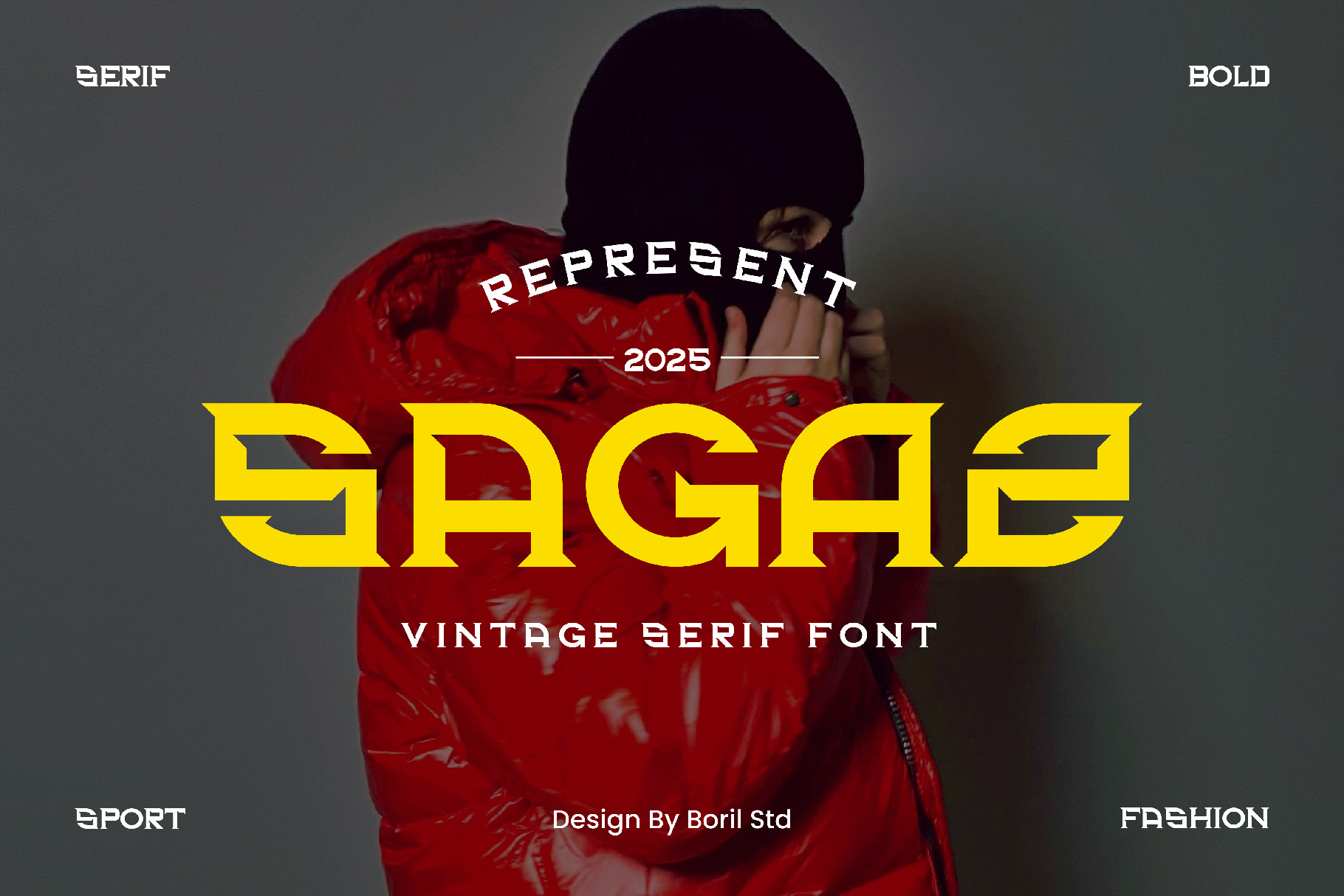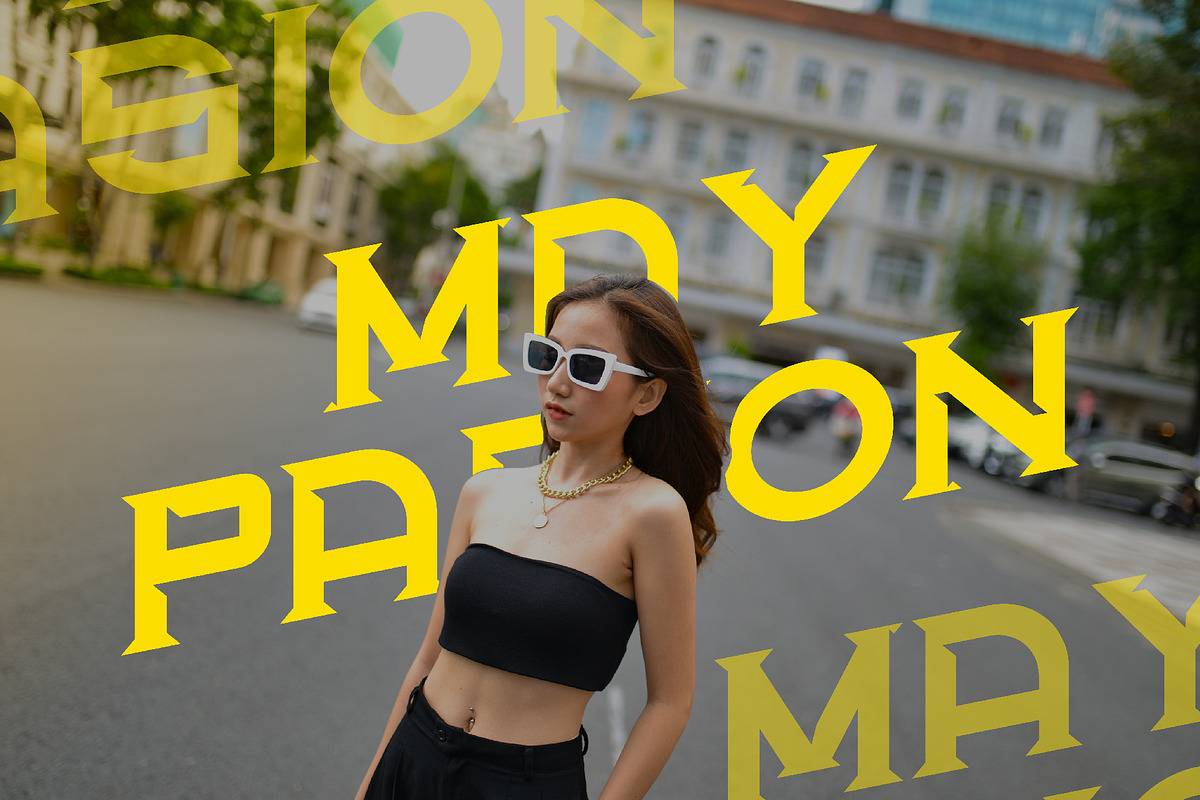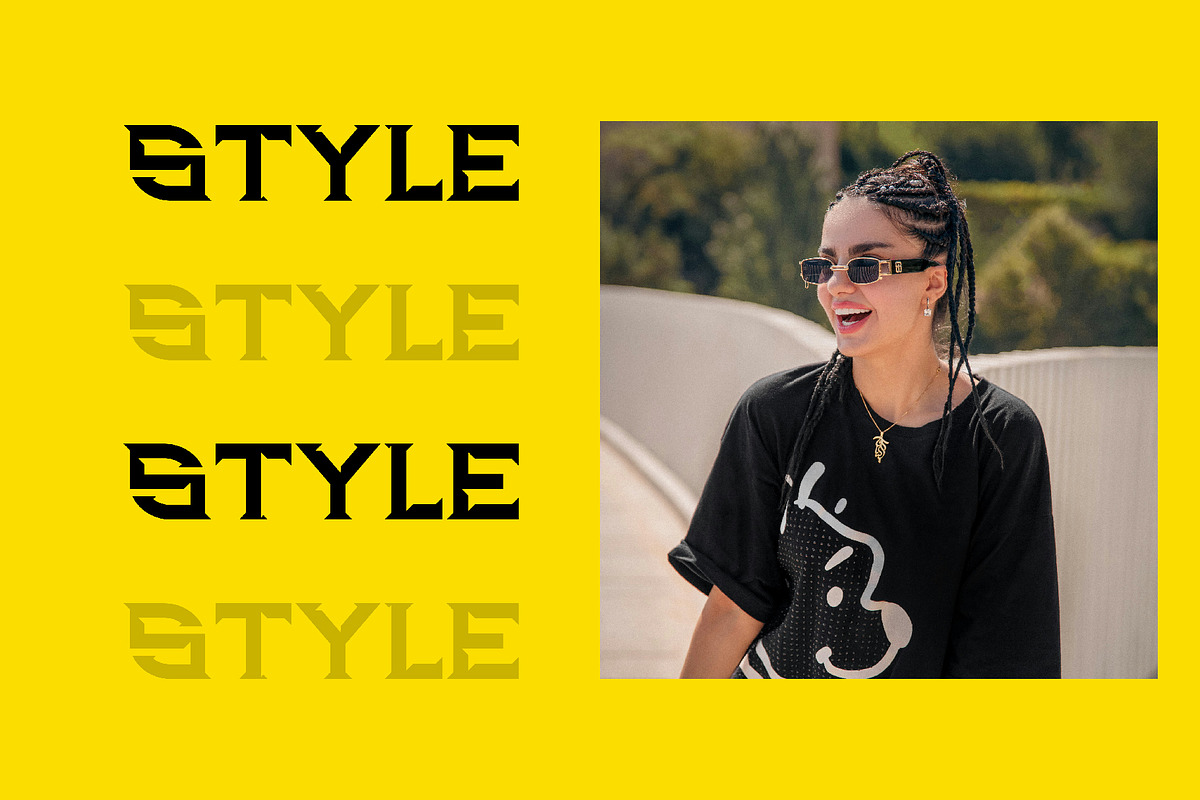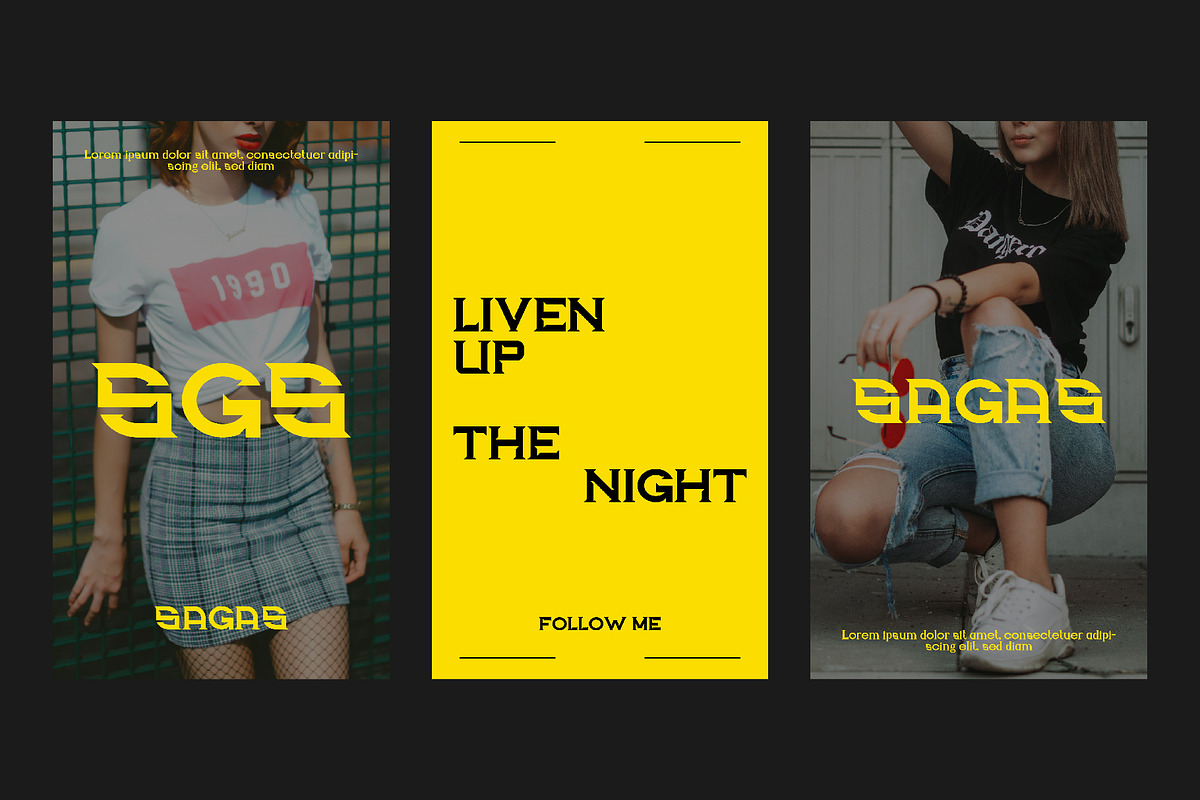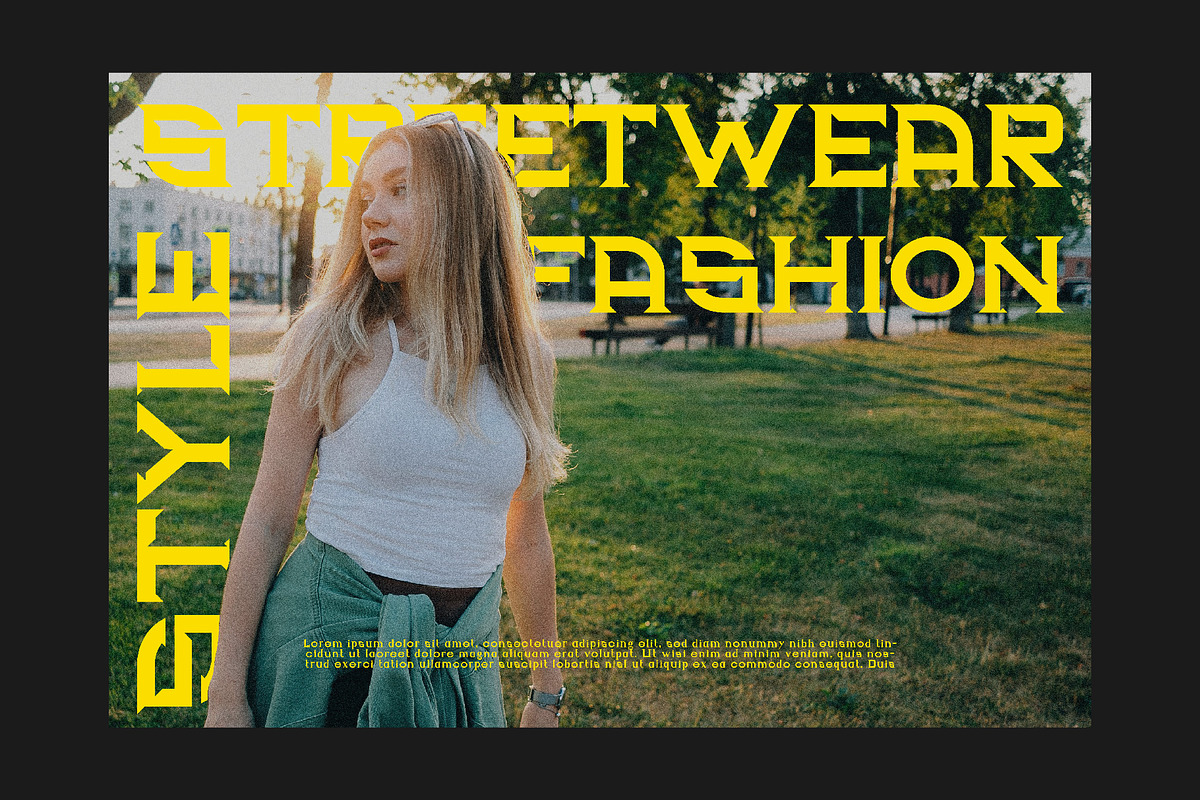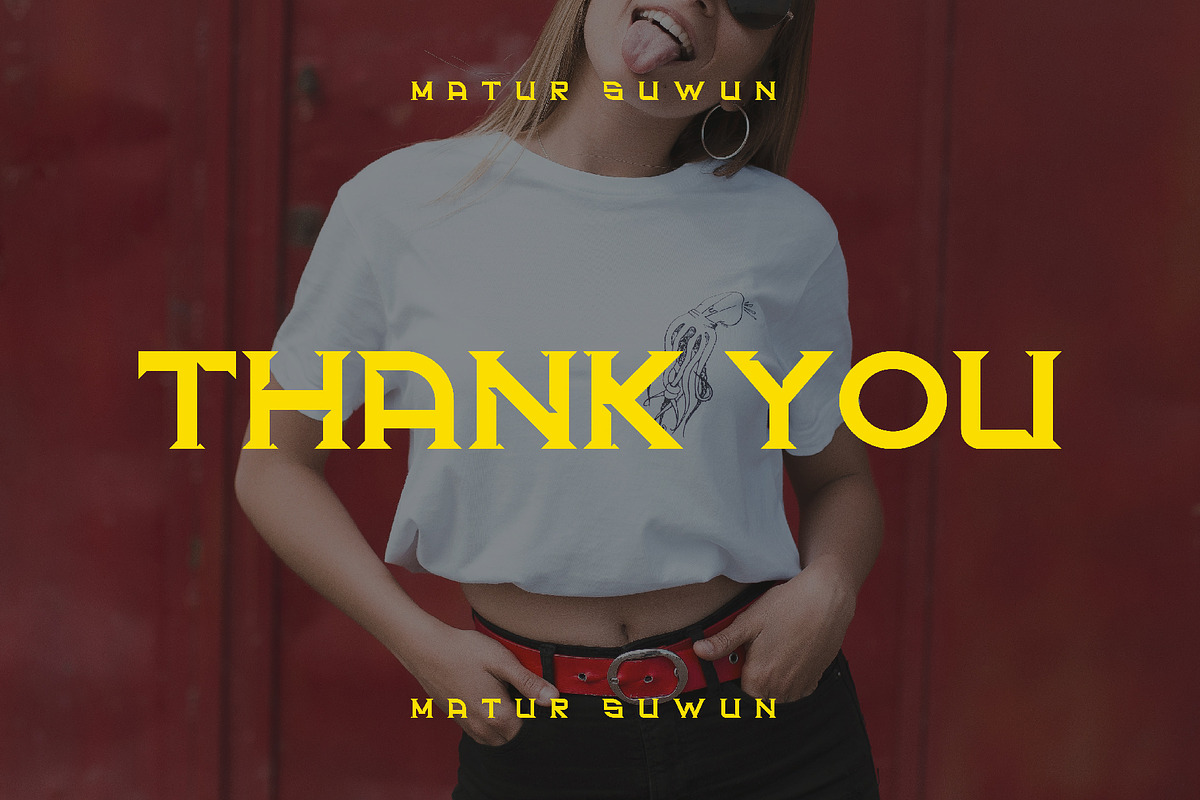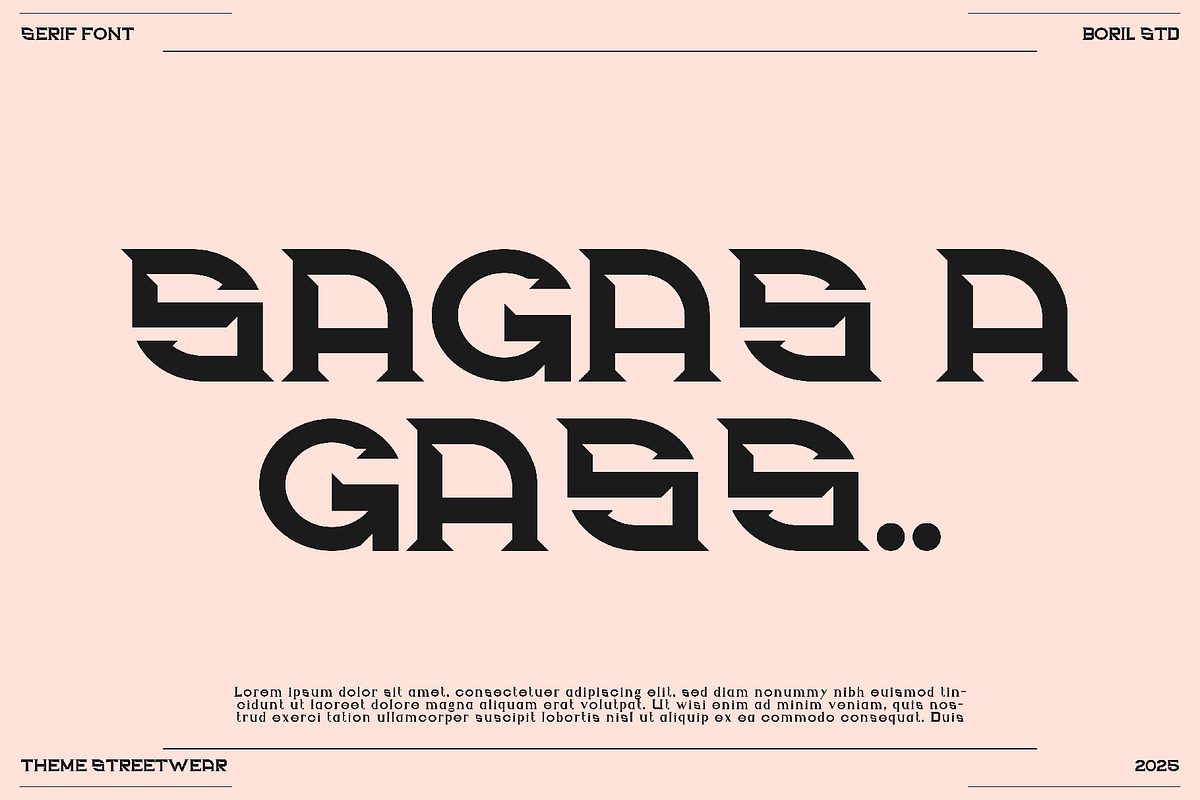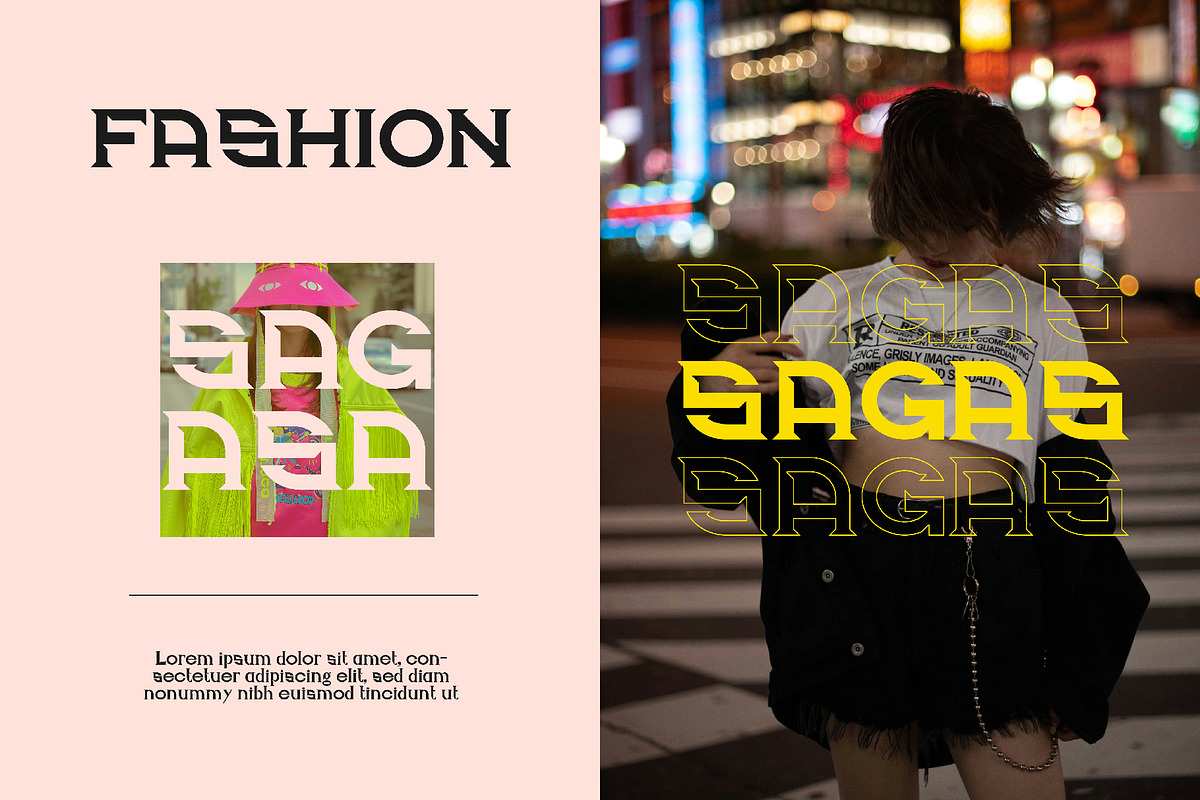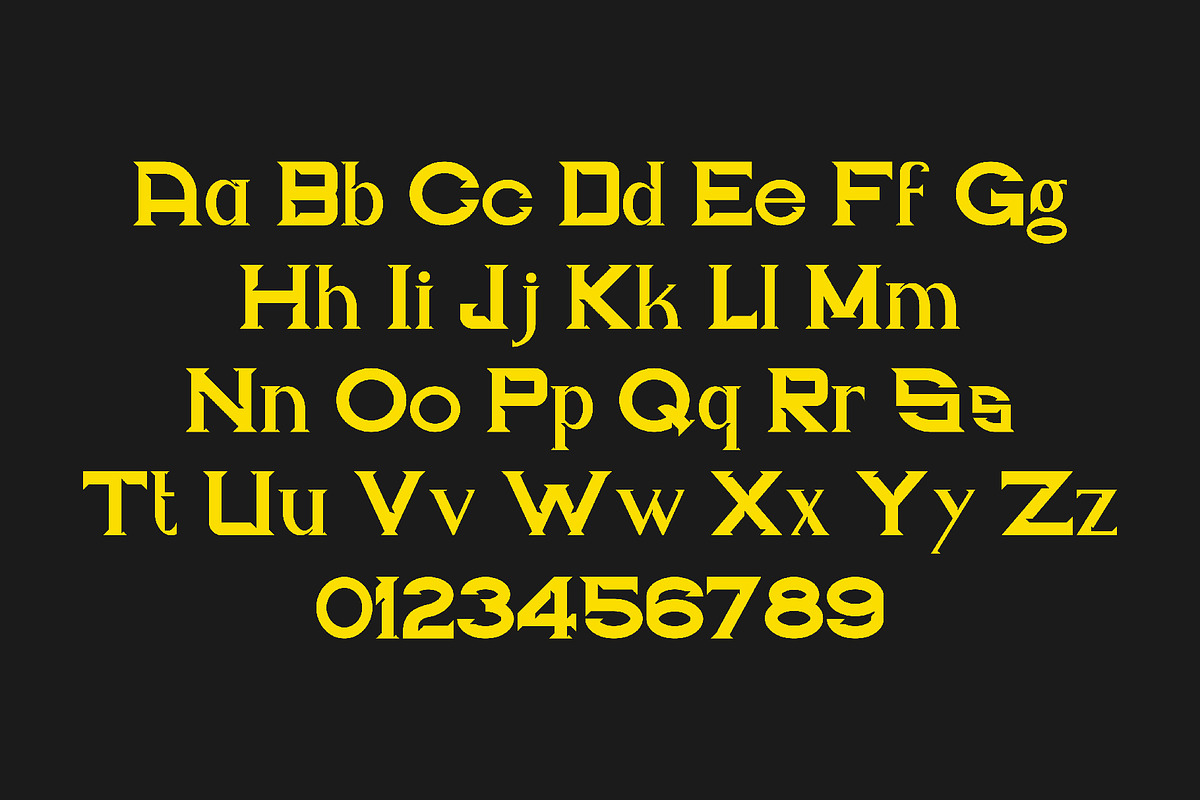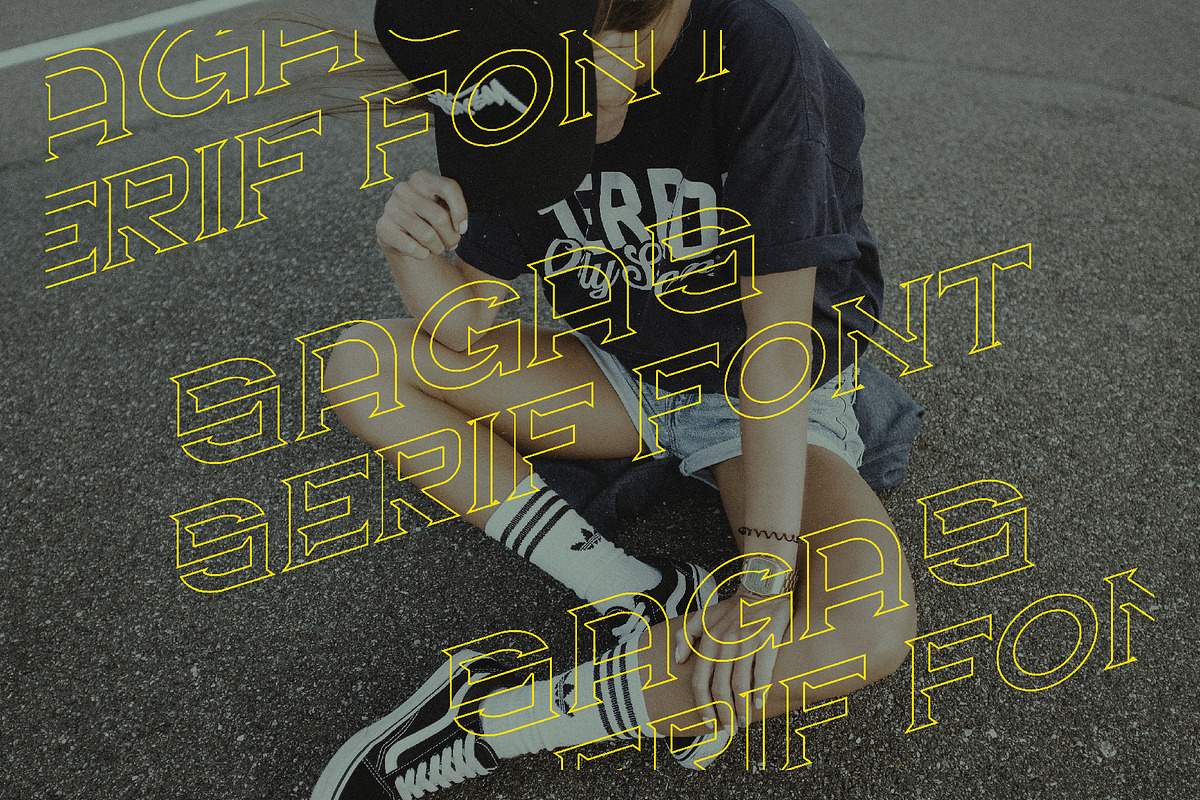
SAGAS - Serif Display Font
SAGAS - Serif Display Font is a bold, modular display typeface that blends classic serif proportions with futuristic, sliced geometry. The sharp internal cuts and closed counters create a dramatic contrast, lending the font a techno-gothic personality.